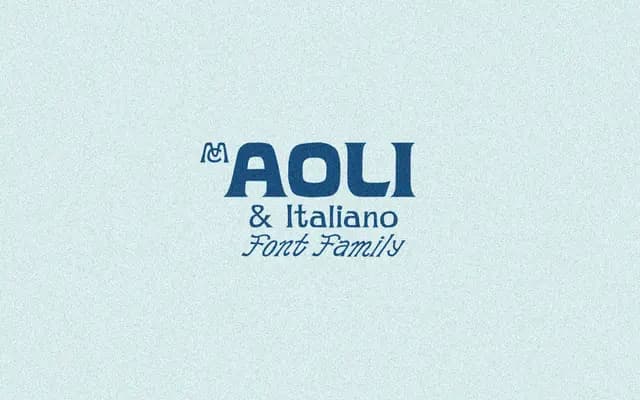
MC Aoli and Italiano
A serif family from McLetters comprising a roman cut and a named italic companion, MC Italiano, sold under tiered commercial licensing.
MC Aoli and Italiano is a two-subfamily serif released by McLetters, pairing a roman with a separately named italic, MC Italiano. Licensing is tiered by company size and intended use, covering individual through enterprise and app deployment. The page offers limited detail on weight range or language coverage beyond a Latin character set.
The family name references an italic companion, suggesting a classical serif with a paired italic subfamily; the naming convention and price tiers indicate a professional text or display serif with distinct roman and italic cuts.